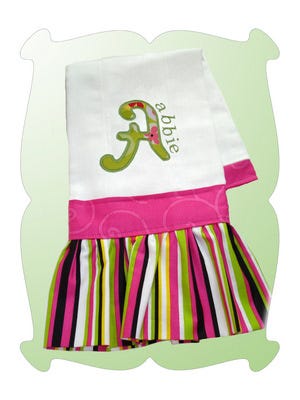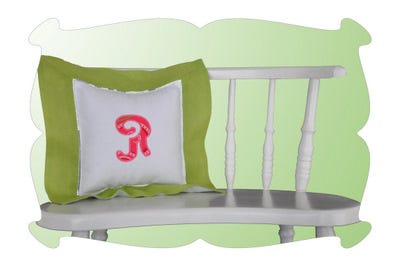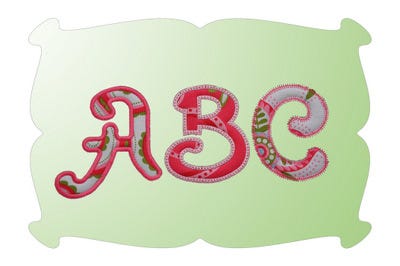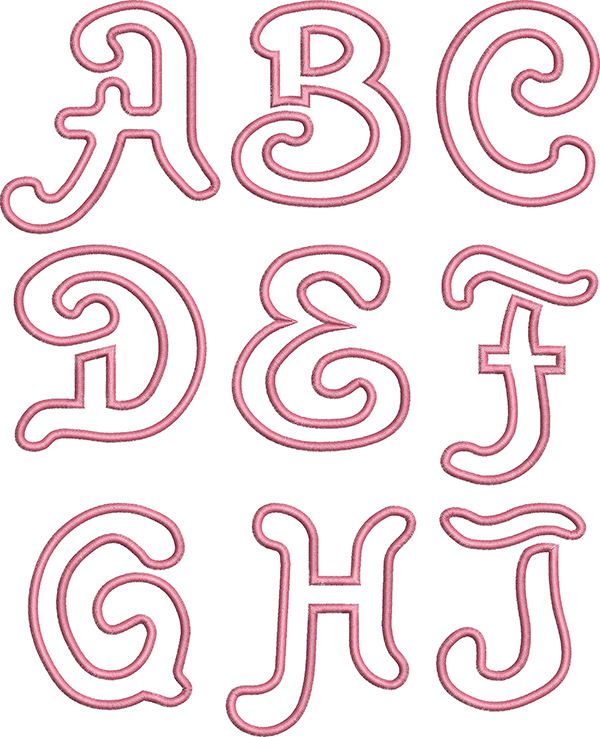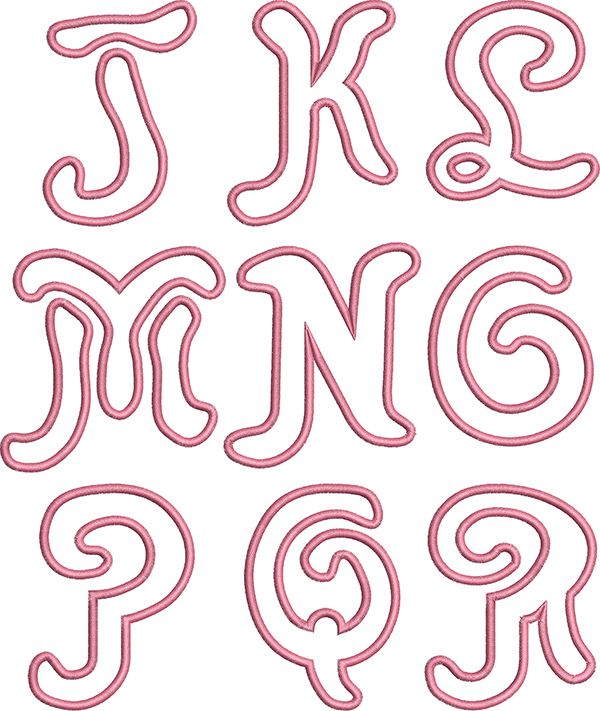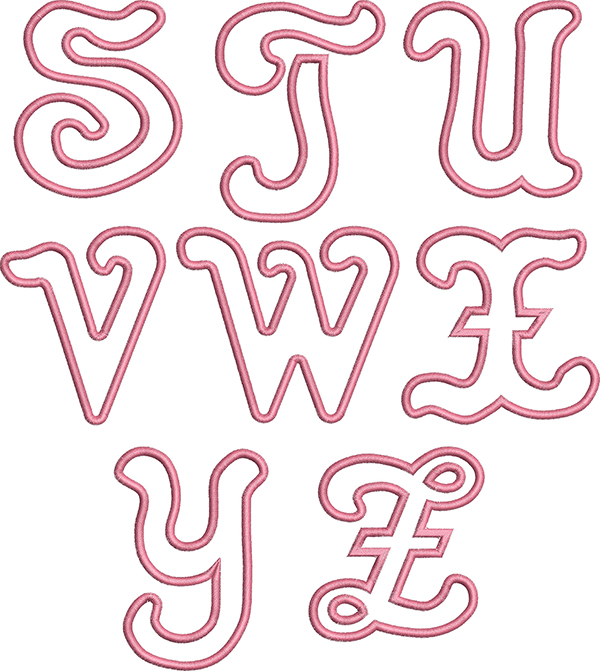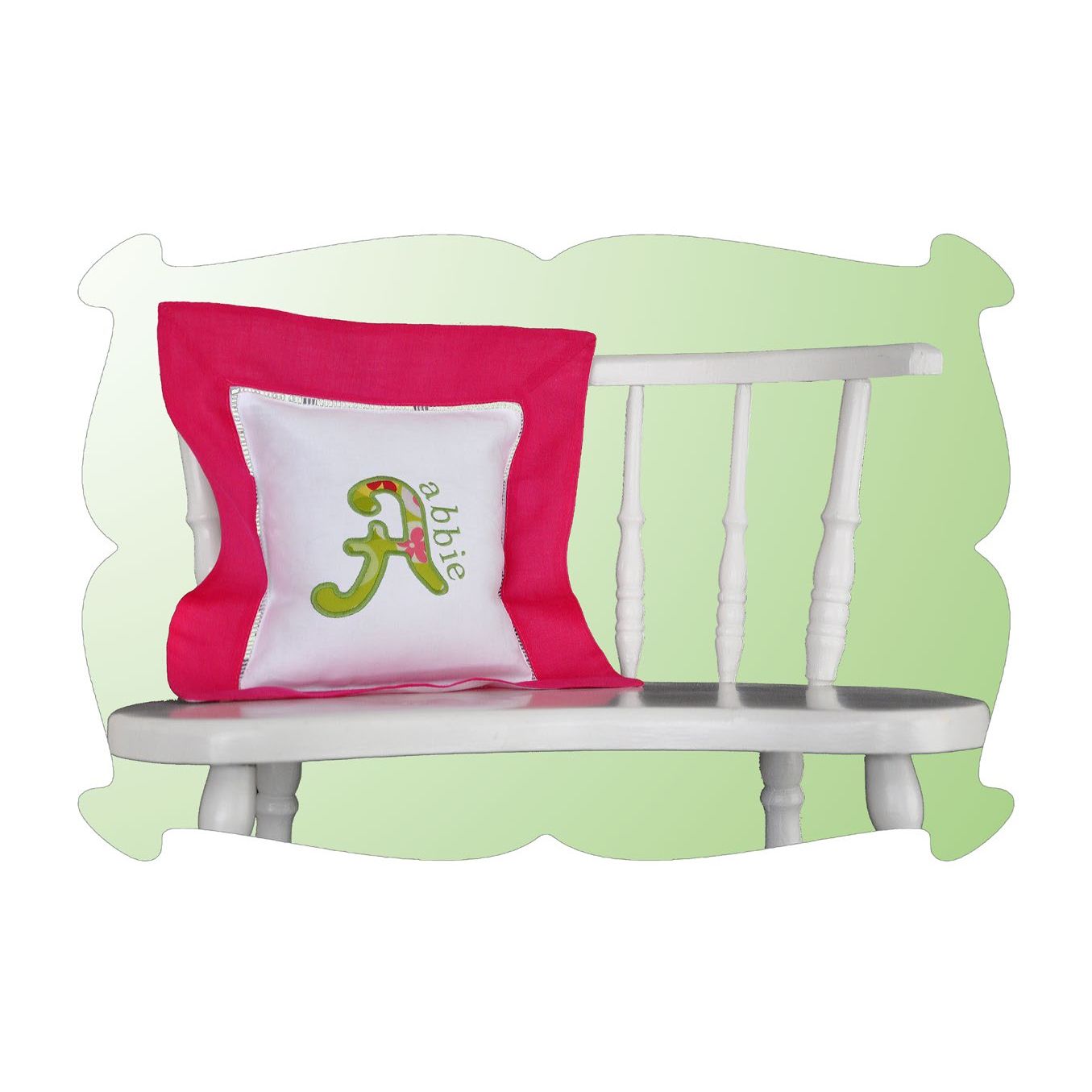
Fancy Applique Font
...a fun, swirly, script font.
3 finishing styles: satin, zig zag, satin with decorative stitch.
Capital letters A thru Z.
This is such a fun applique font to use all kinds of ways...like on a pillow.
...or on a burp cloth.
I decided to "unstack" the name "abbie" next to the applique letter.
I think it's a cute look.
...or on another pillow.
...hey these pillows are addictive to make!
3 styles of finishing stitches are included:
(traditional satin, satin with a decorative triple stitch and zig zag)
Three styles of applique letters:
1. Traditional satin stitch.
2. Tradtional satin stitch with a decorative triple stitch.
3. Quick and easy zig zag stitches.